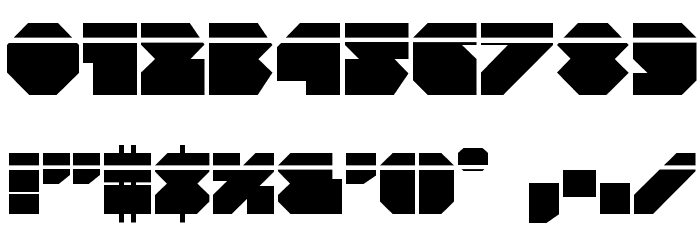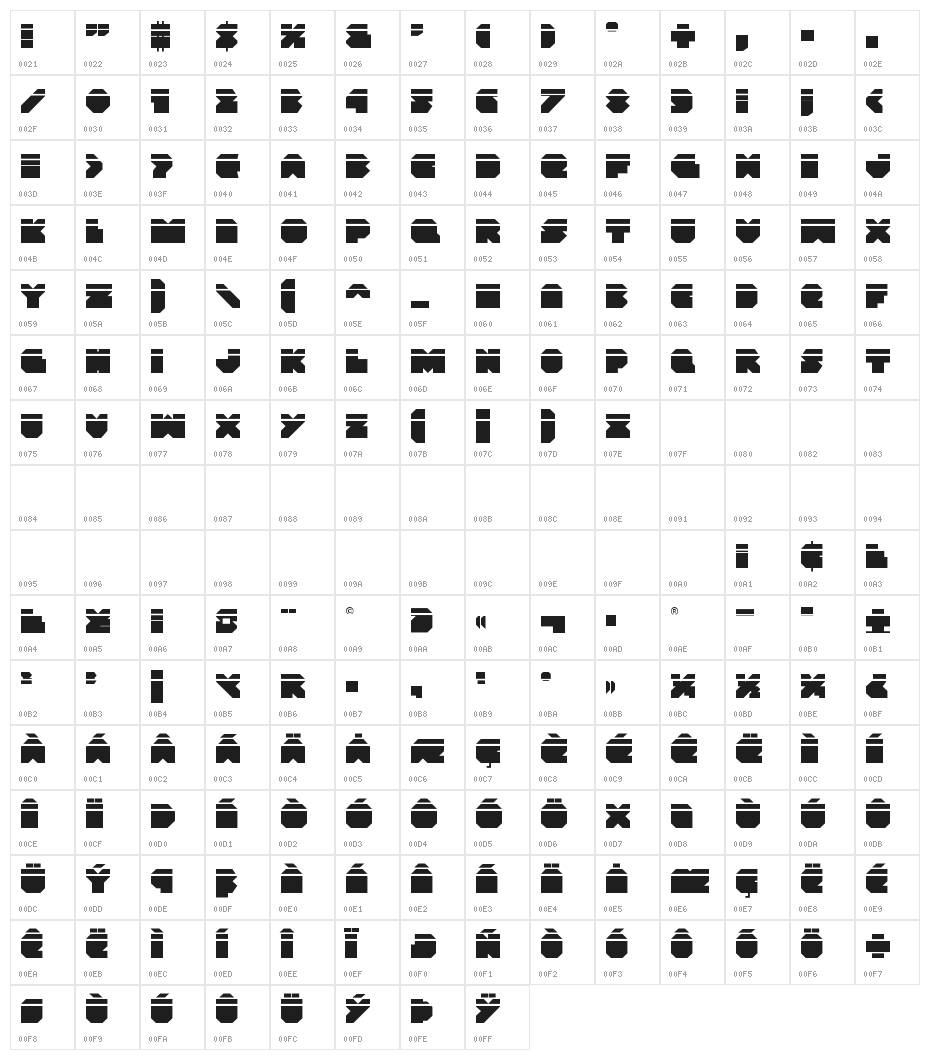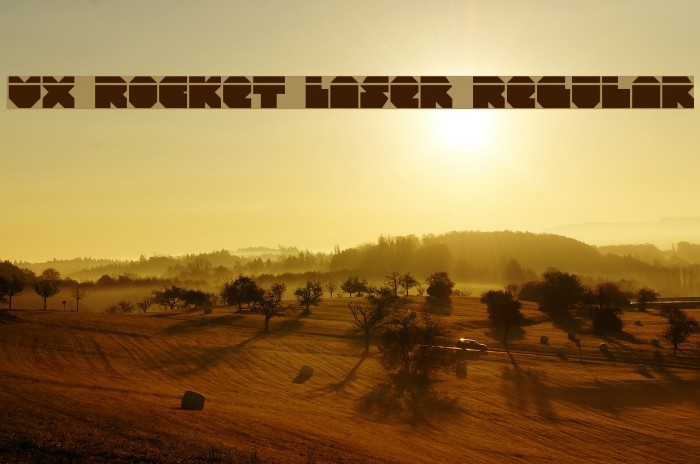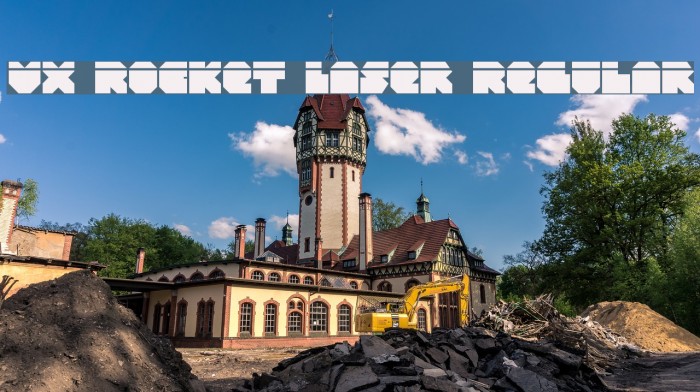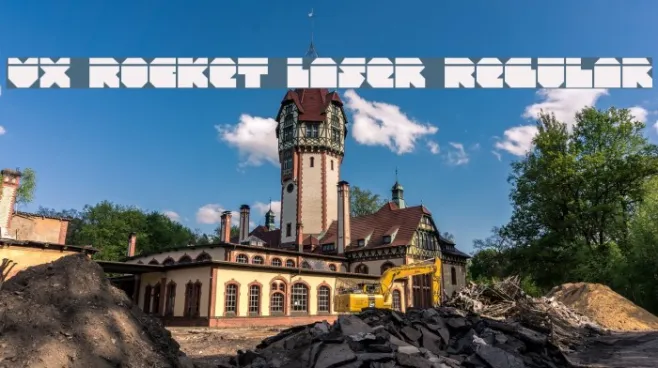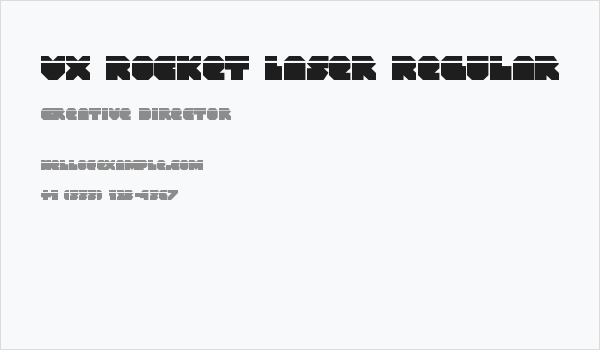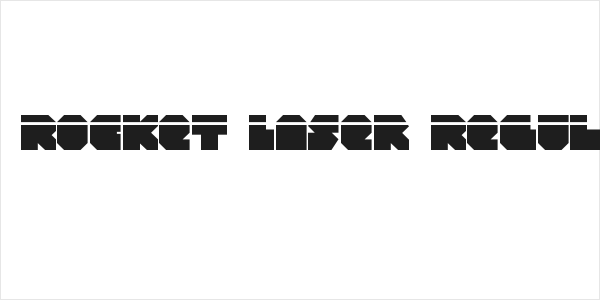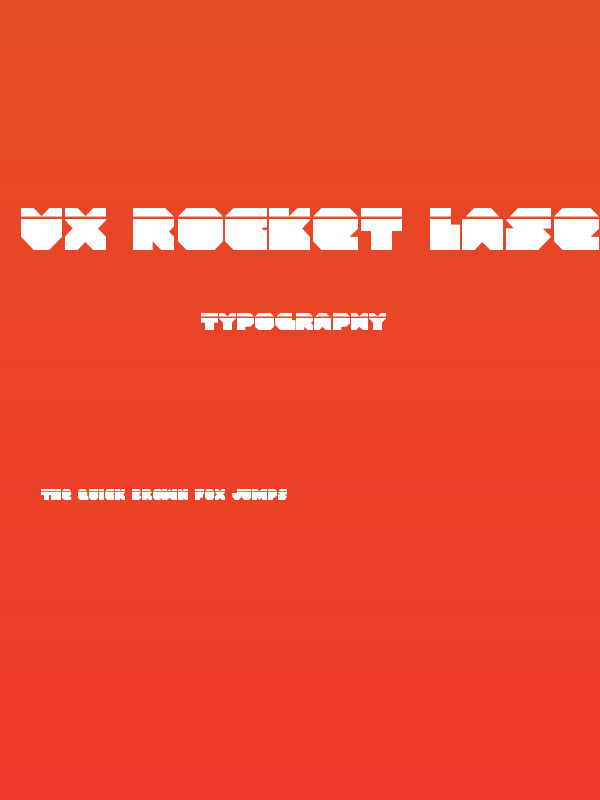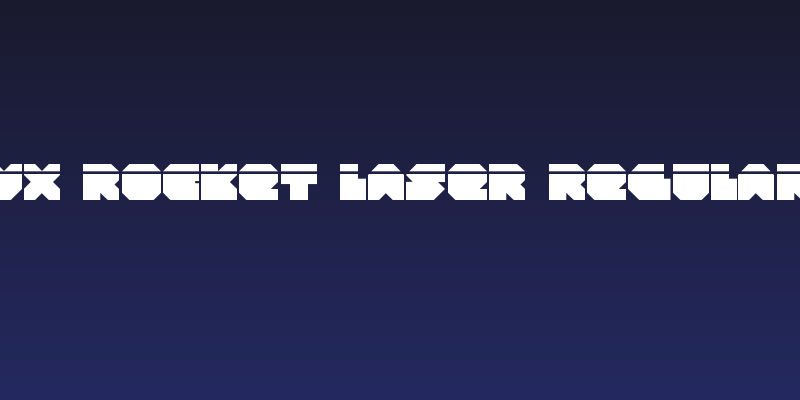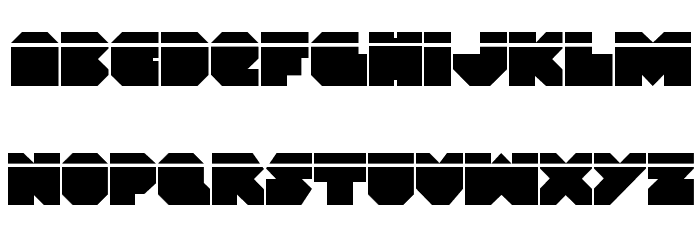
VX Rocket Laser Regular Font
VX Rocket Laser Regular Description
This font features a bold, geometric design with a futuristic and industrial feel. The characters are constructed with solid, block-like shapes, giving them a strong and impactful appearance. The angular cuts and sharp edges contribute to a sense of precision and modernity. The uppercase and lowercase letters maintain a consistent style, with uniform thickness and a distinct, cohesive look. Numbers and special characters are designed to match the boldness and geometric nature of the alphabet, ensuring a harmonious overall appearance.